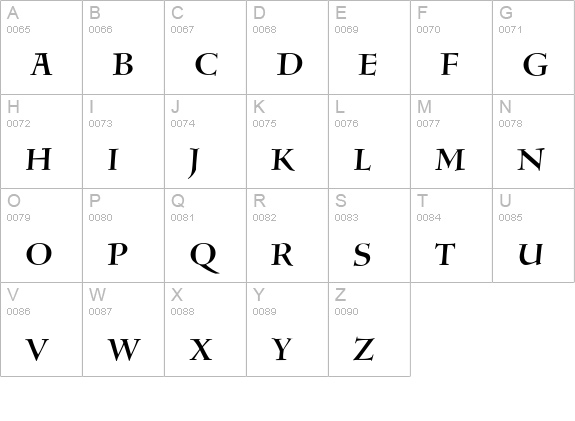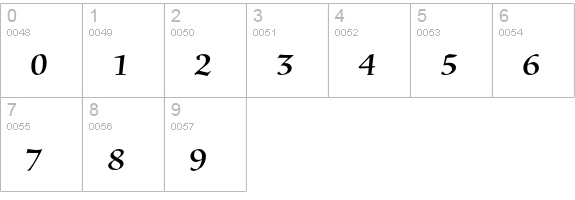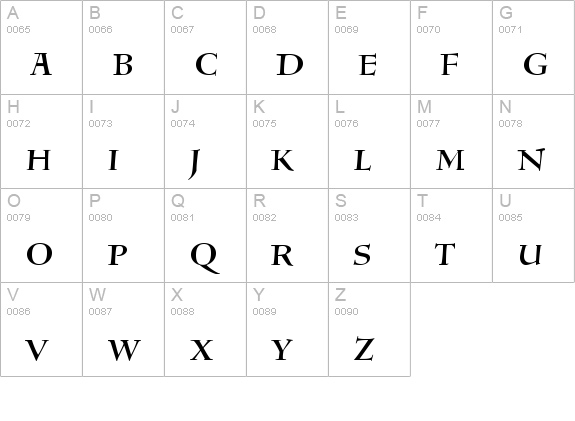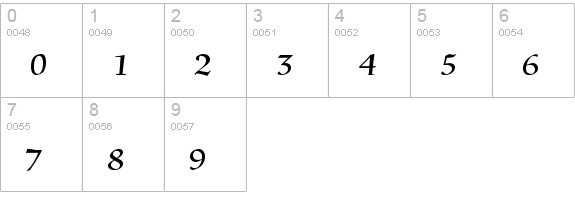
Silentium Pro Roman I Font Details
Silentium Pro Roman I font is a stunning typeface that exudes elegance and sophistication. With its sleek and streamlined design, it is perfect for adding a touch of class to any project. The clean lines and balanced proportions of this font make it highly versatile, suitable for both headings and body text. What sets Silentium Pro Roman I font apart is its ability to convey a sense of tranquility and serenity. Its carefully crafted letterforms create a harmonious rhythm that is pleasing to the eye and soothing to the mind. Whether used in print or digital media, this font brings a sense of calmness and clarity to any composition. One of the most exciting aspects of Silentium Pro Roman I font is that it is available for free download at FontsMarket.com. This means that you can easily access this beautiful typeface without any cost or restrictions. With just a few clicks, you can enhance your designs with the timeless elegance of Silentium Pro Roman I font. Designed with precision and attention to detail, Silentium Pro Roman I font is a true testament to the craftsmanship of typography. Its graceful curves and graceful strokes create a sense of harmony and balance, making it a versatile choice for a wide range of design projects. From branding and packaging to editorial layouts and web design, this font will elevate your work to new levels of sophistication. Whether you are a professional designer or a DIY enthusiast, Silentium Pro Roman I font is a must-have addition to your font collection. Its timeless beauty and free availability make it a valuable resource that you can rely on for all your design needs. Download Silentium Pro Roman I font today from FontsMarket.com and unlock a world of endless creative possibilities.